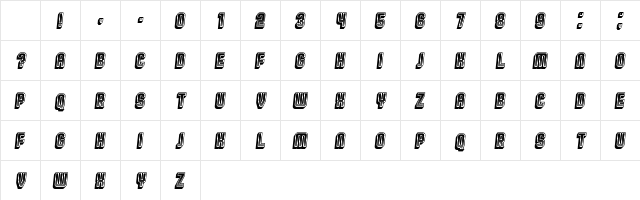
Complete Broadway Gradient 3D Italic glyph index. Displaying only characters natively supported by Broadway Gradient 3D Italic font.
Broadway Gradient 3D is a composed and adaptable typeface that performs quietly and consistently across a wide range of design contexts. The slanted form adds forward momentum and visual energy.
Pro Tip: Use Broadway Gradient 3D for emphasis, pull quotes, and subheadings where its slanted energy can add rhythm to the layout.